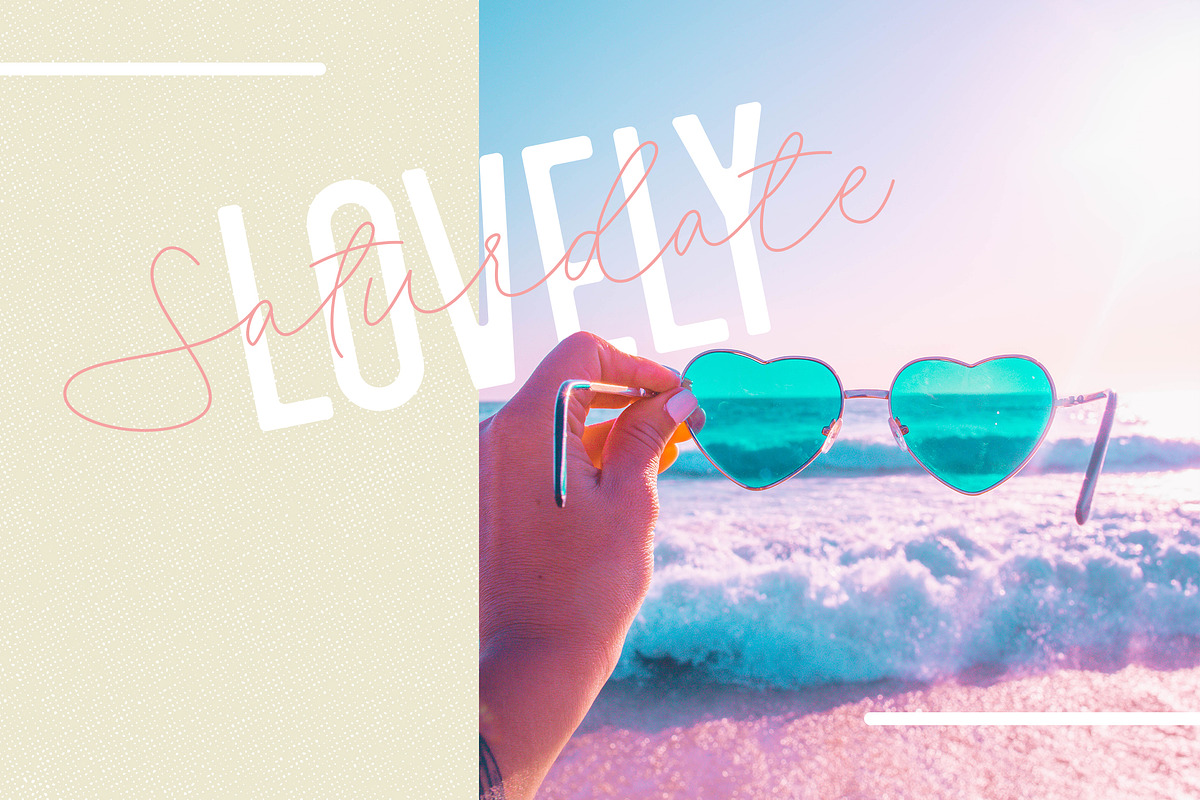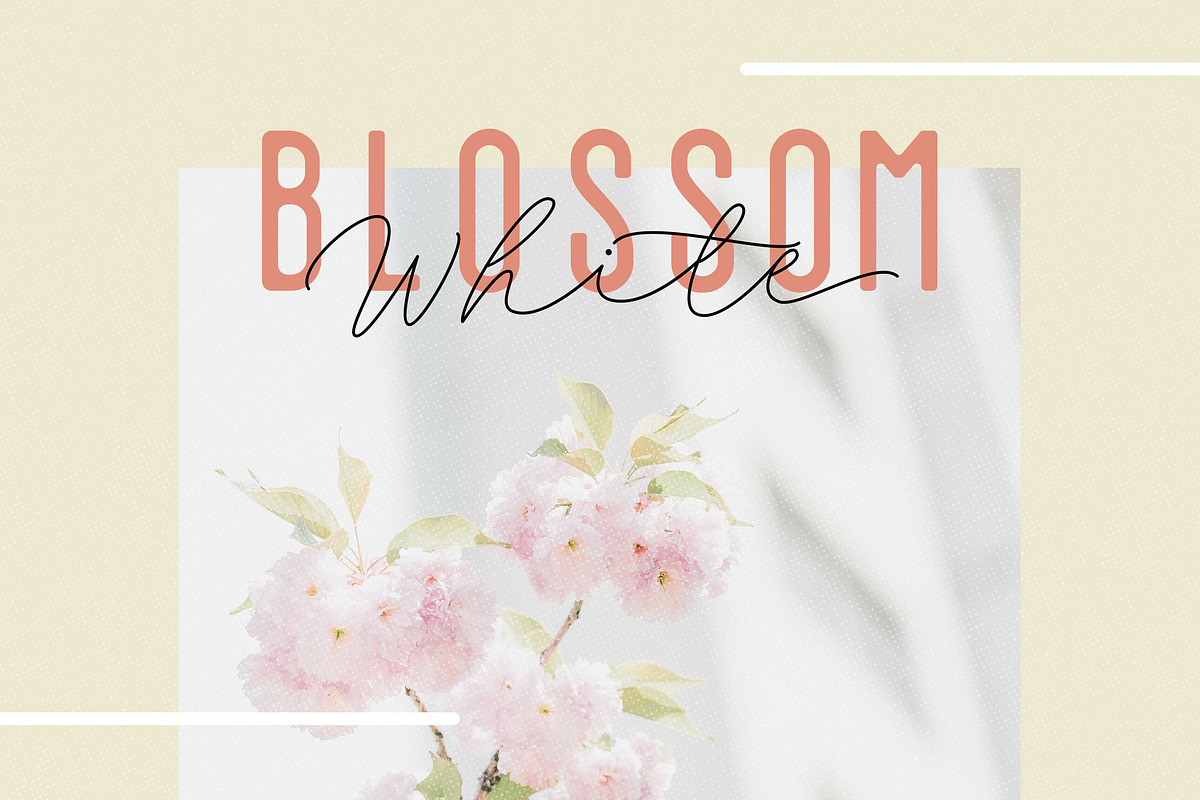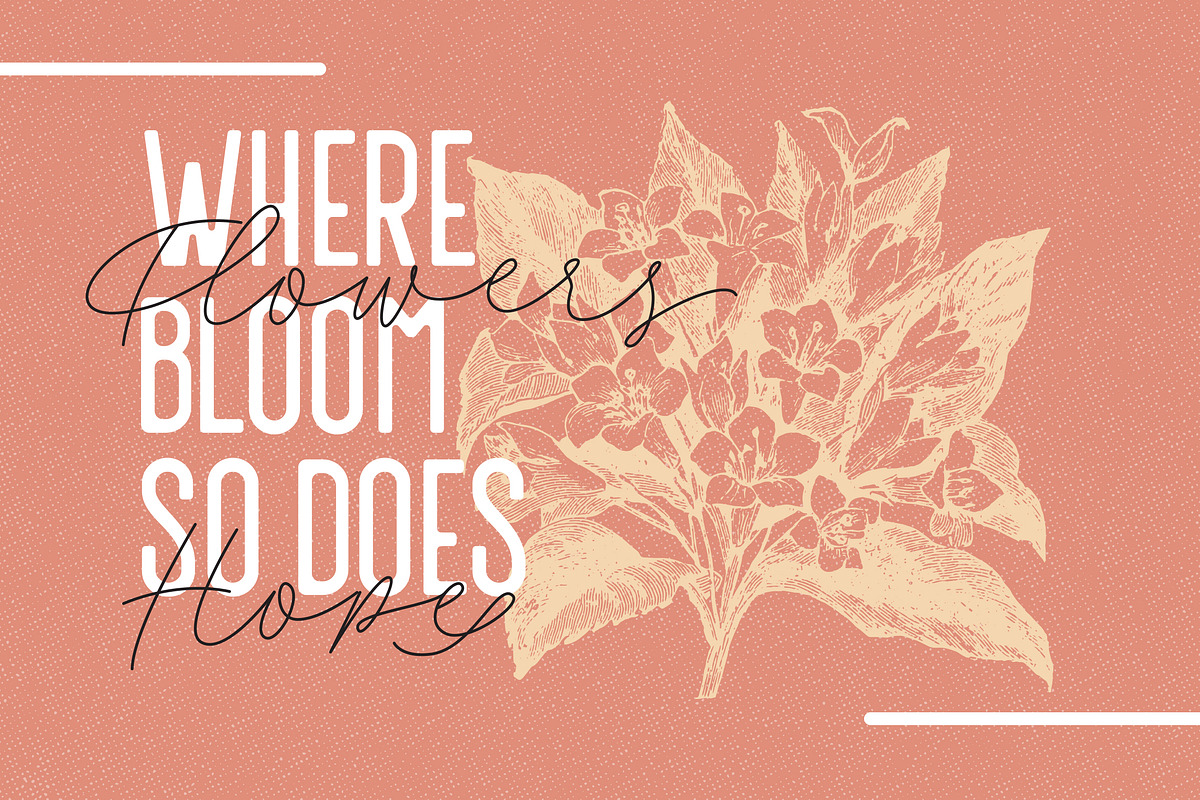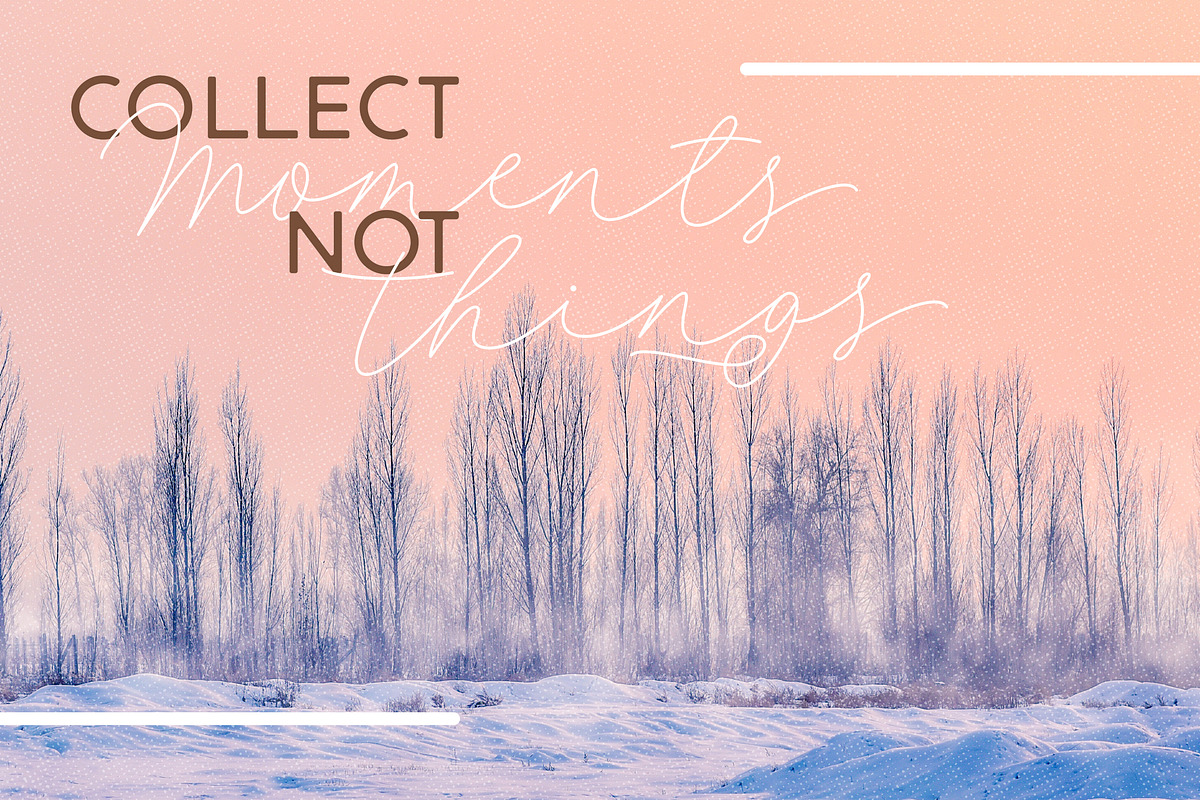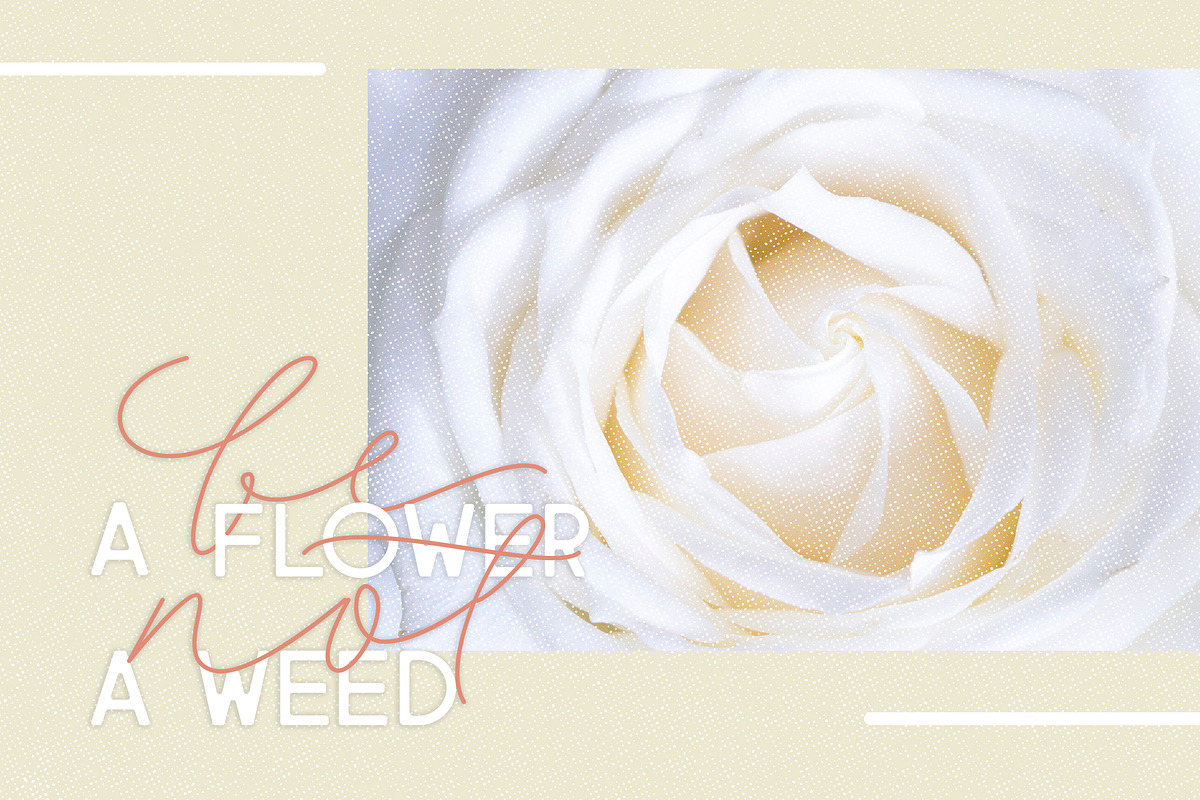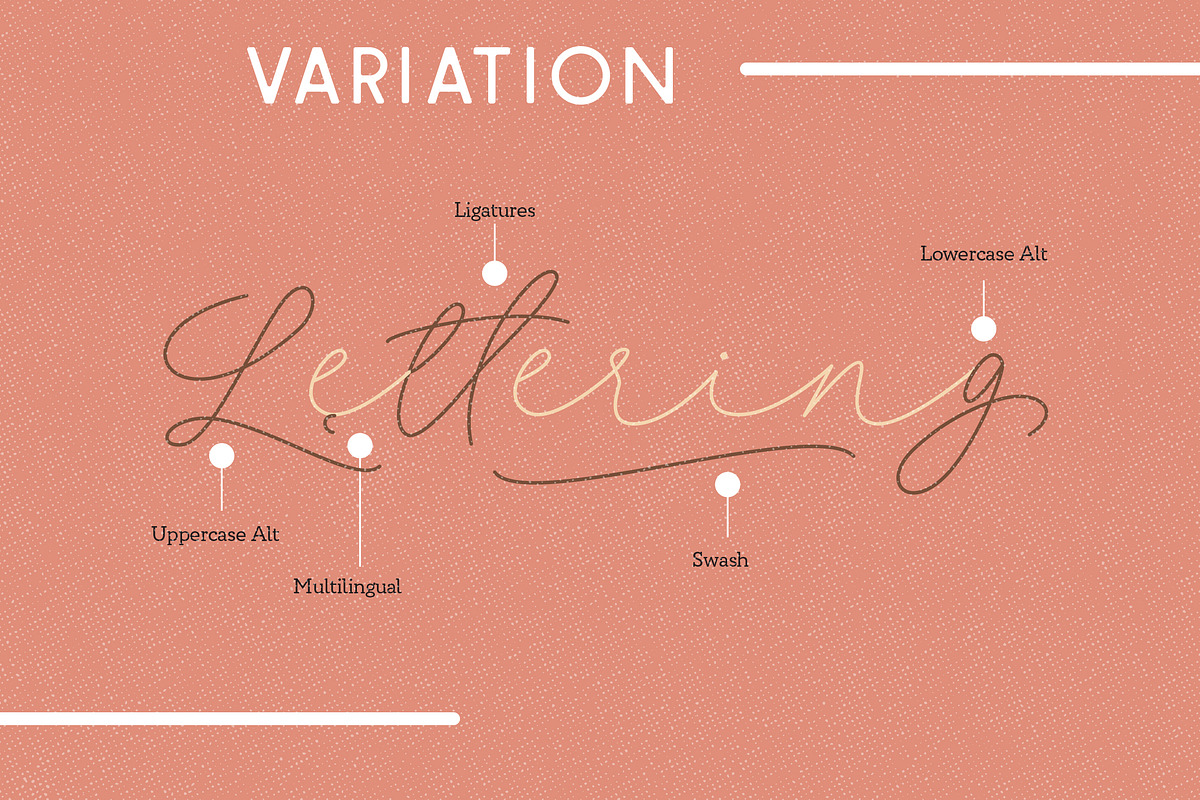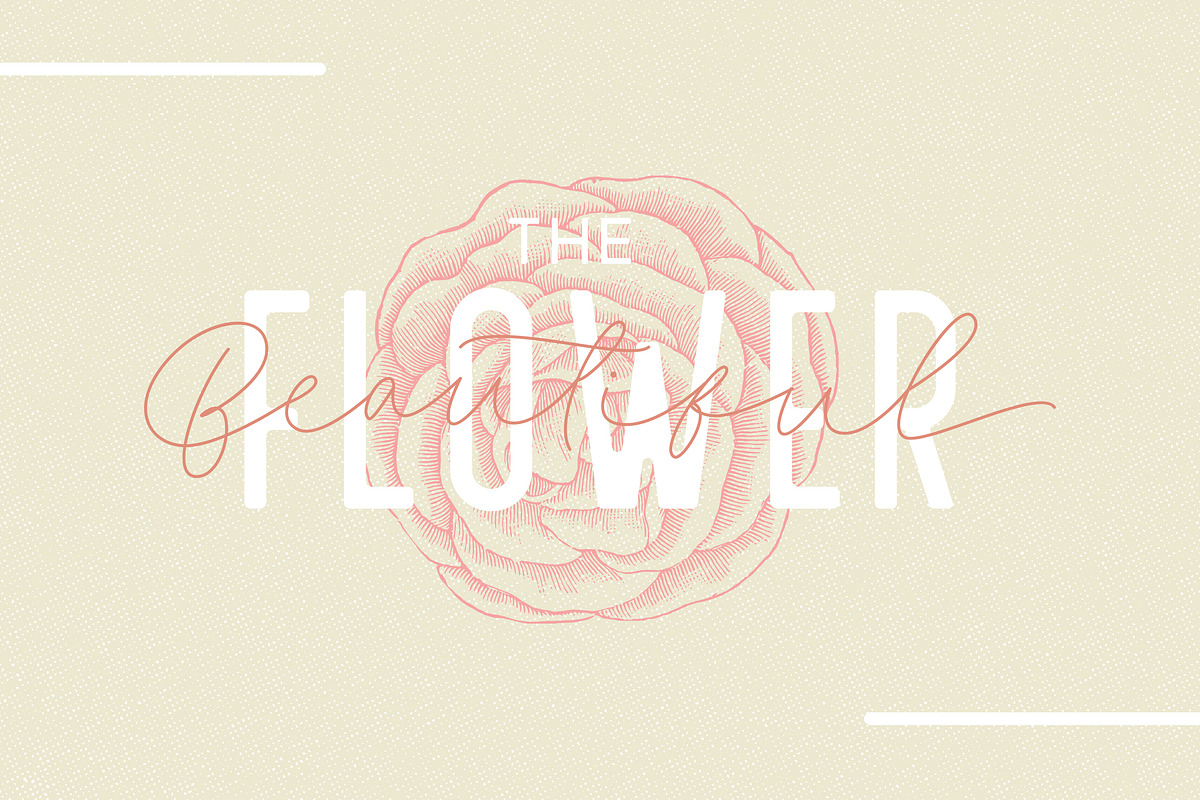
Filia - Script, Sans, & Bold Font
"Filia" is a font display that is made by hand, inspired by classic posters.
comes with uppercase, lowercase, numerals, punctuations and so many variations on each character include OpenType alternates, common ligatures and also additional swash to let you customize your designs. Perfect to use for Logotype, Letterhead, Poster, Apparel Design, Label and etc.